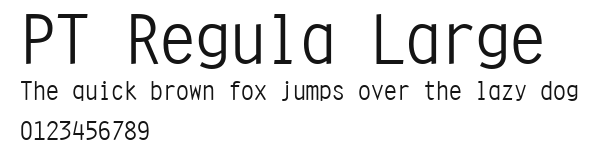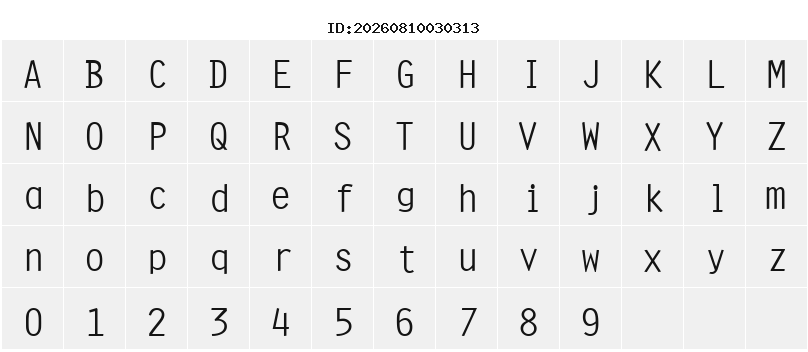
• Font Name: PT Regula Large
About PT Regula Large.ttf
PT Regula Large.ttf is a modern, elegant sans-serif font designed for ultimate readability and visual harmony. Perfect for branding, headlines, web design, and print materials.